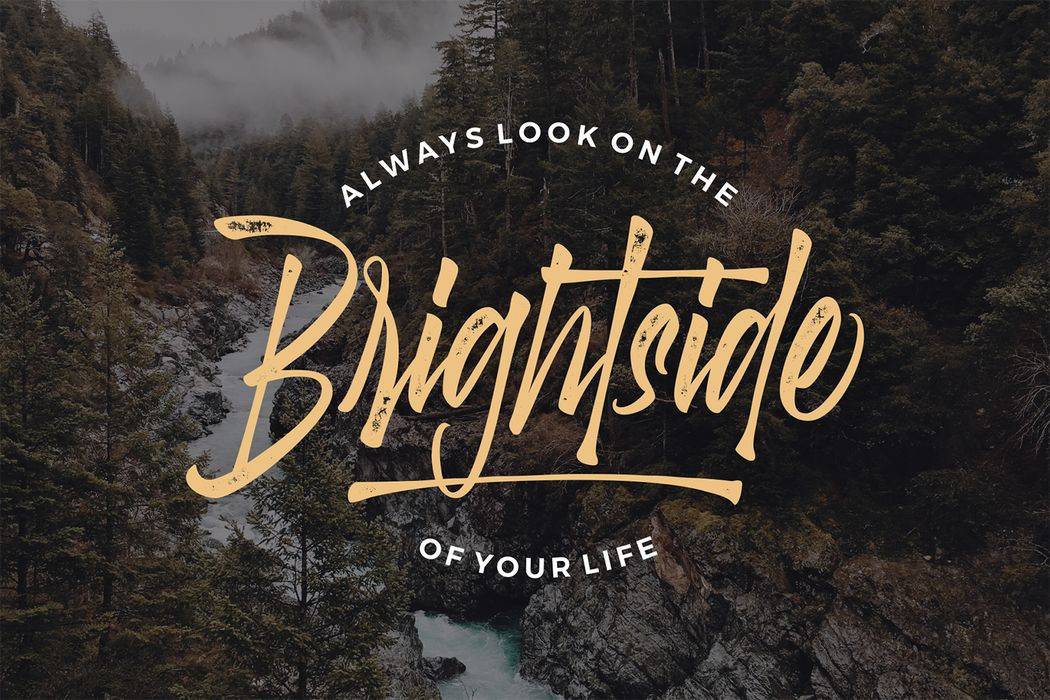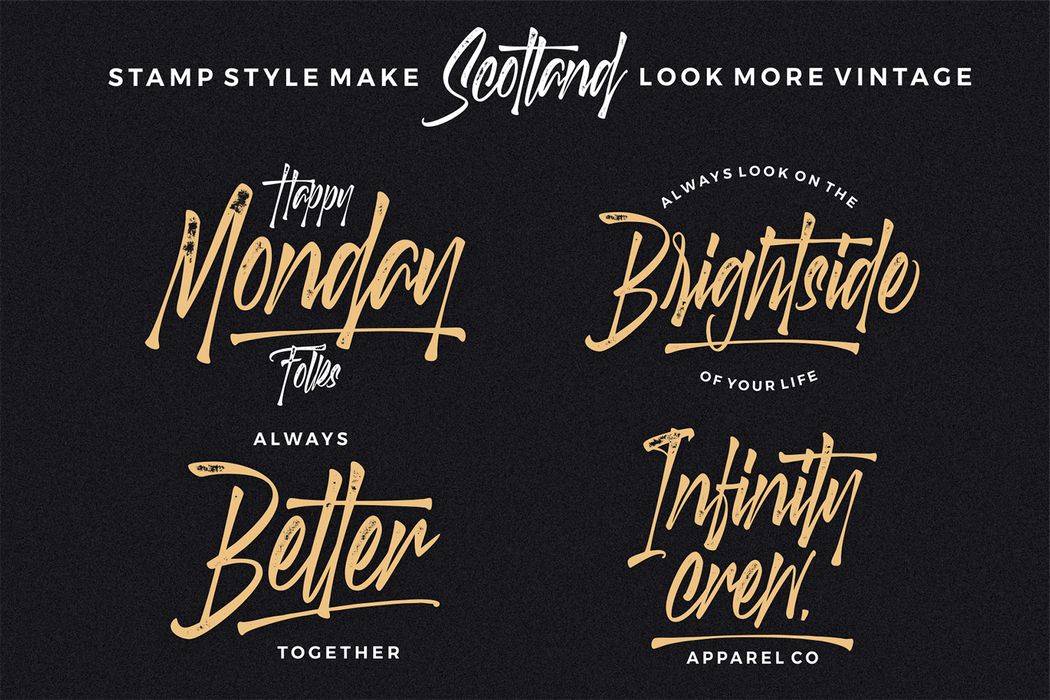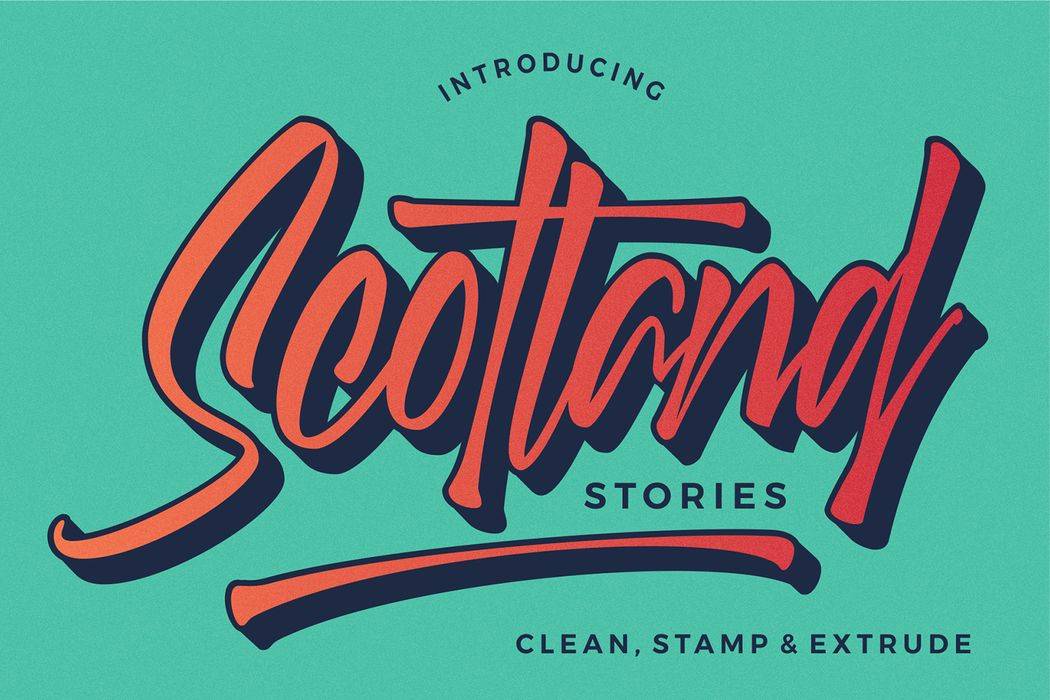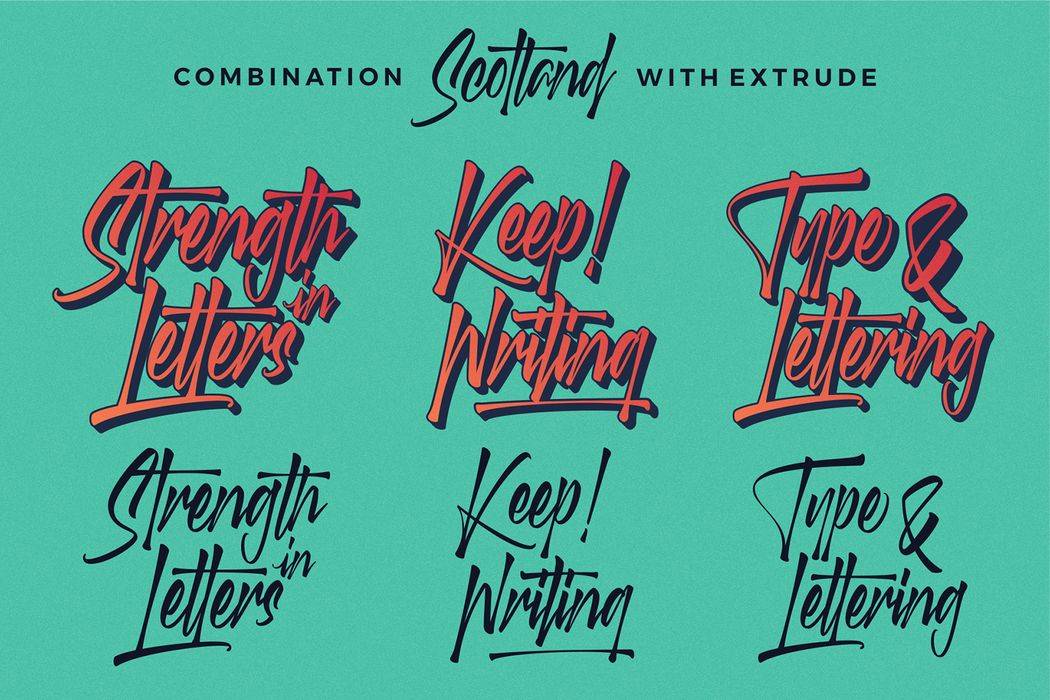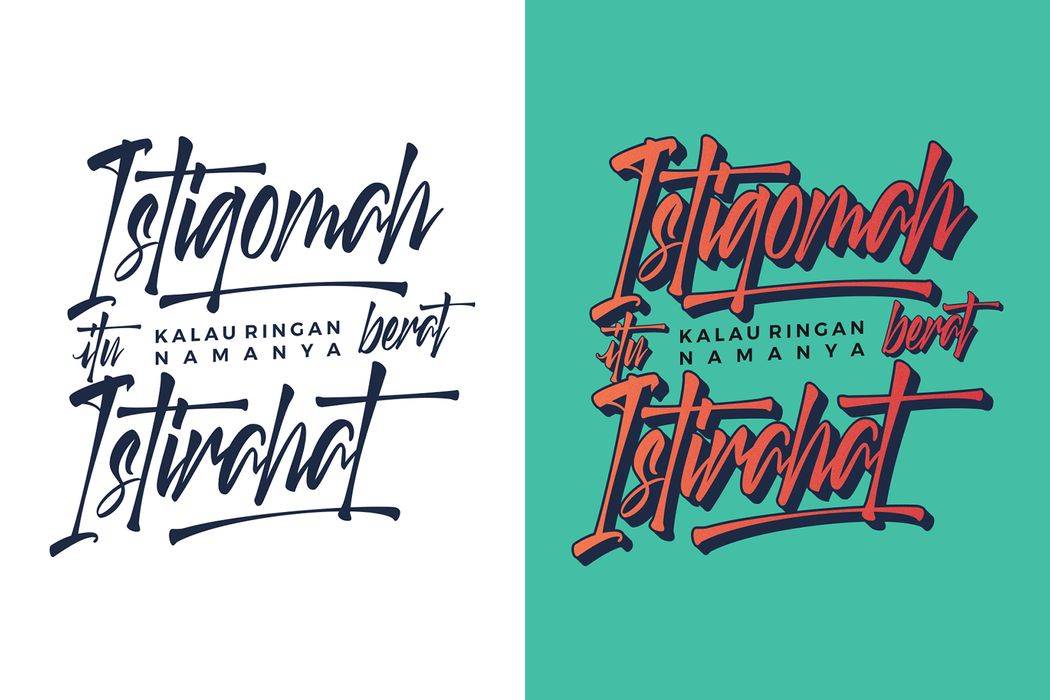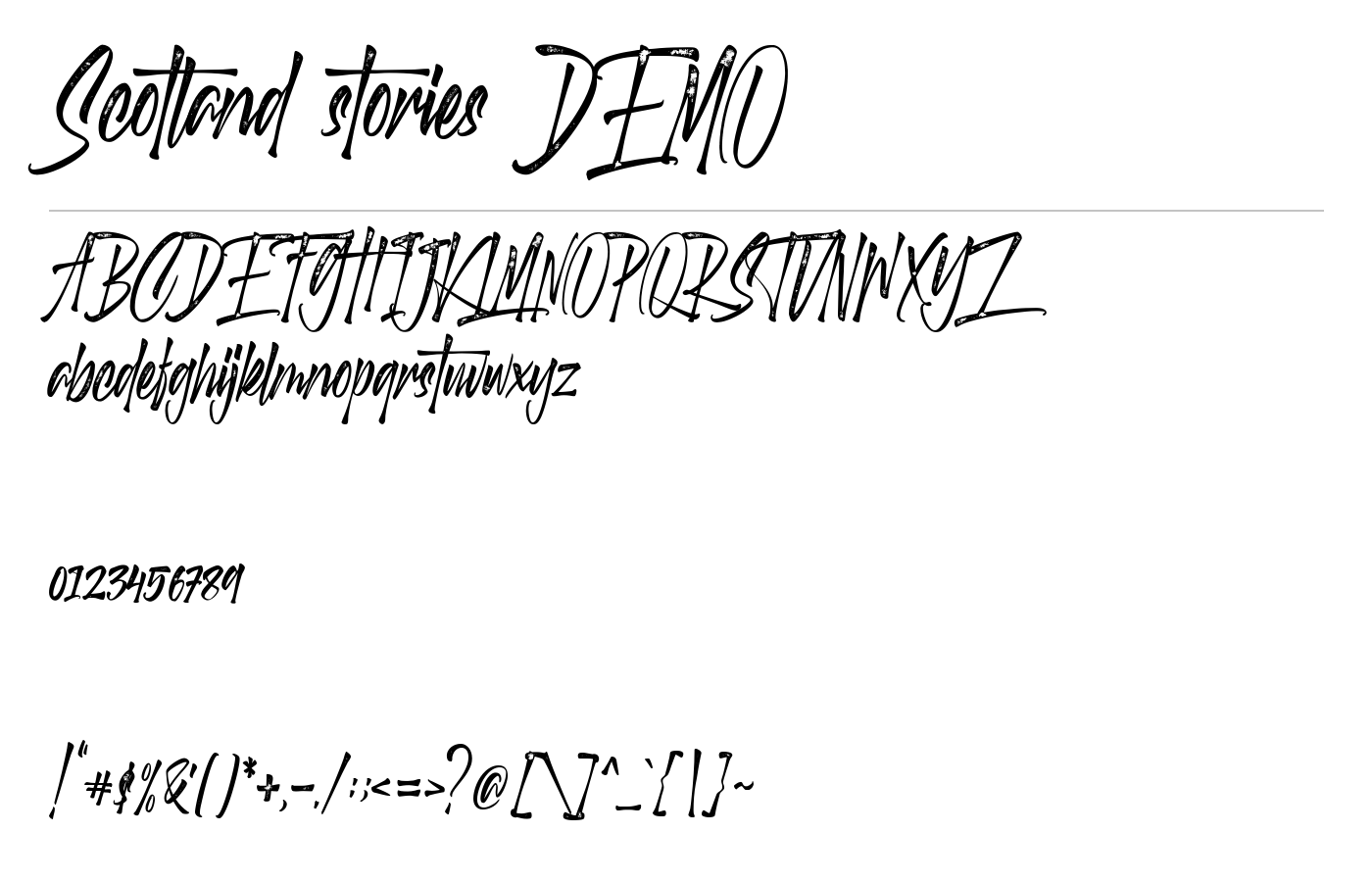
Scotland Stories is a lively and expressive script font with a hand-drawn, brush style that conveys energy and creativity. Its tall, narrow letterforms with varying stroke thickness and rough texture give it a casual yet dynamic feel, making it ideal for artistic branding, modern posters, and eye-catching headlines where a bold, personal touch is desired. This font works well in designs seeking a sense of movement and authentic, handcrafted charm.
Scotland Stories Font
About Scotland Stories Font
| Font family | Scotland Stories Font |
| Release date | 2019-06-12 |
| Designer | Redy Studio |